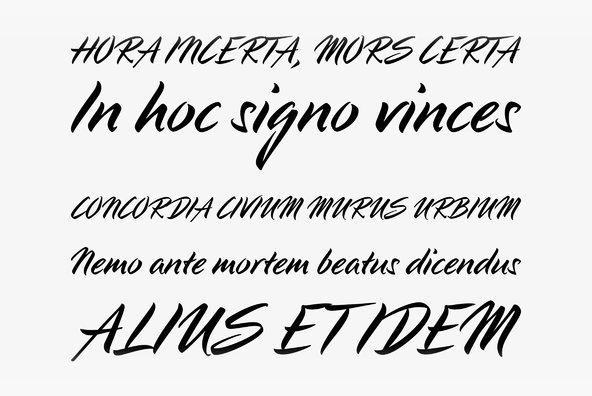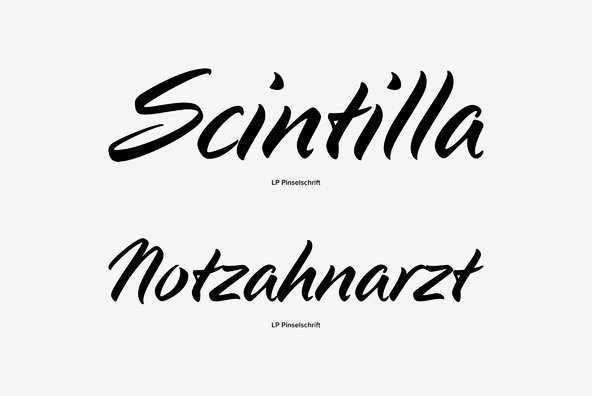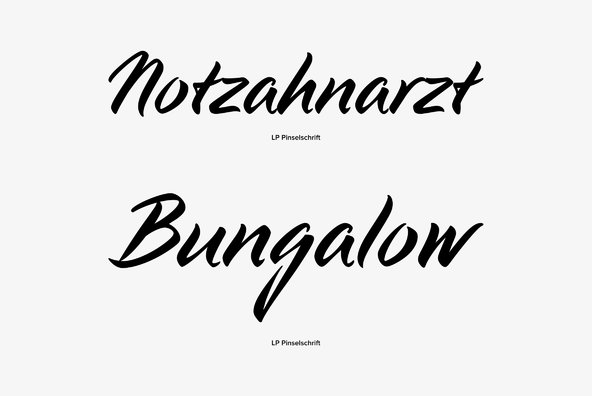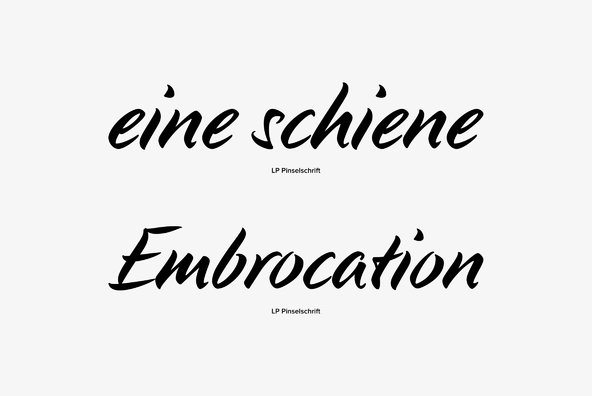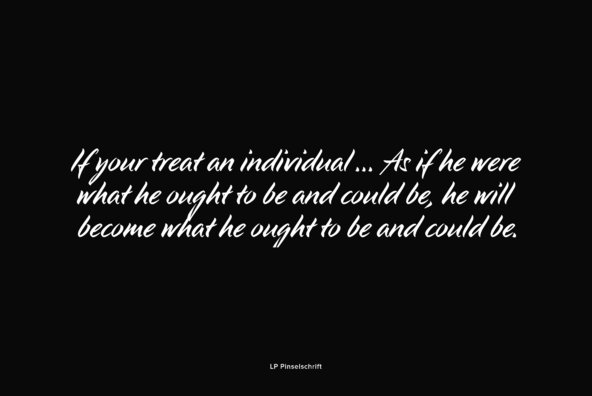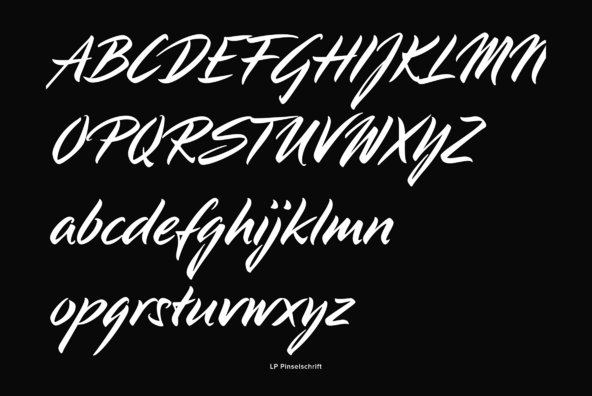
LP Pinselschrift
LP Pinselschrift is a new brush handwriting script from German designer Peter Langpeter (lp-design.de). LP has been running his own design studio since 1995, working as a typeface and logo designer, as a calligrapher, cartographer and illustrator. During this time LP created a large number of excellent new typeface designs. Now, we are extremely happy that LP has chosen to let URW digitally produce and market his designs. LP Pinselschrift is the first original typeface of this series. It is a light, dynamic-flowing and modern brush script.